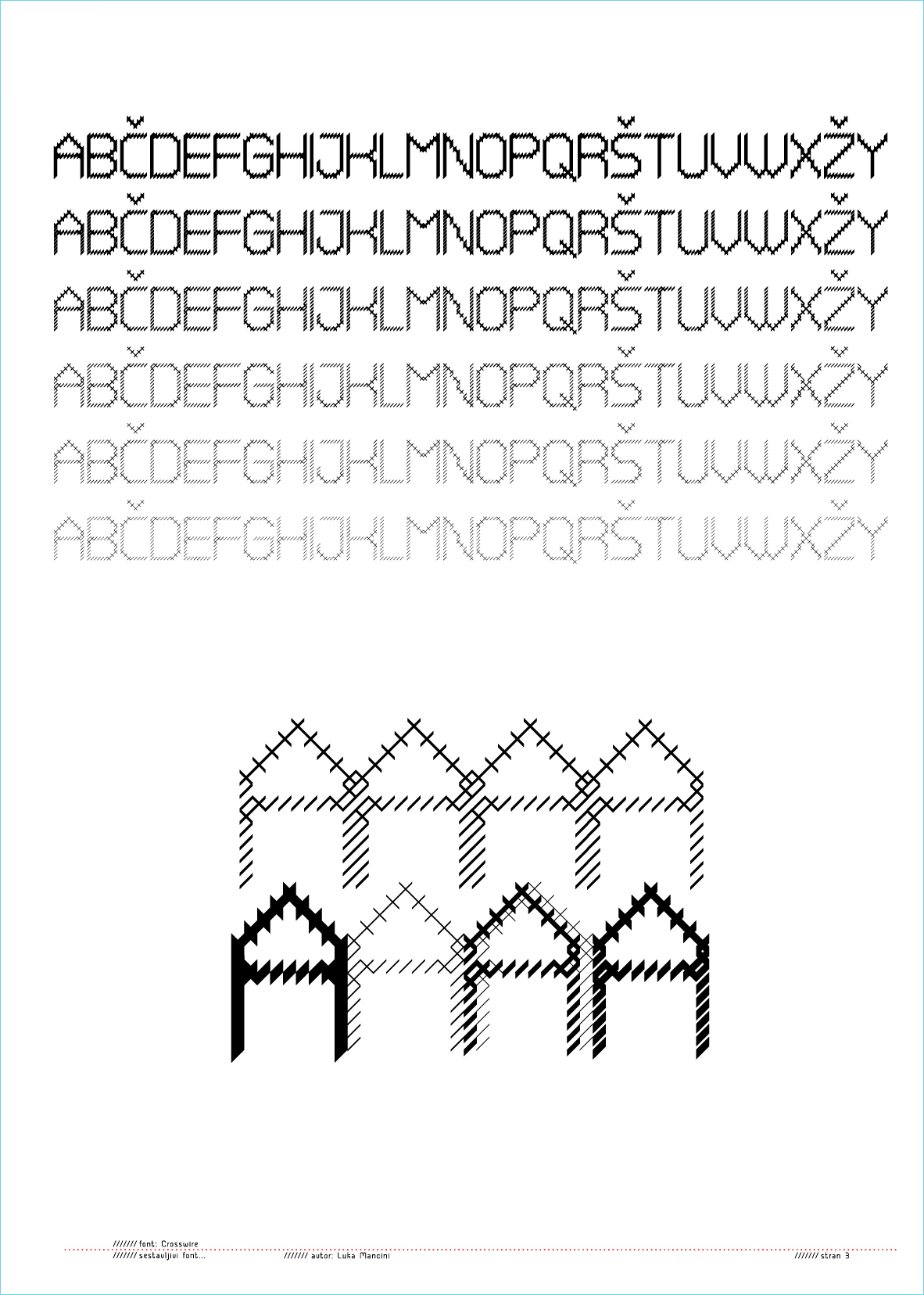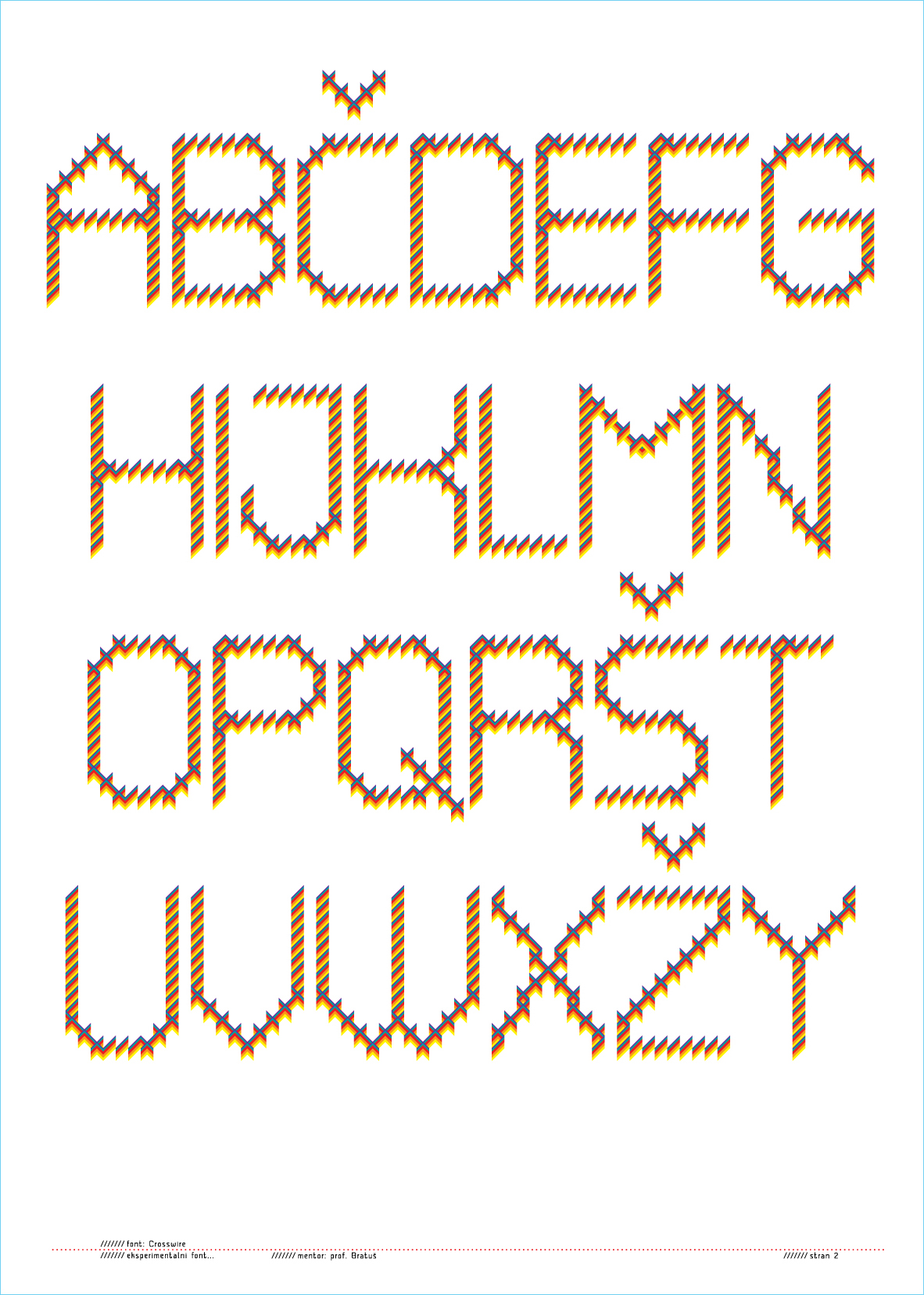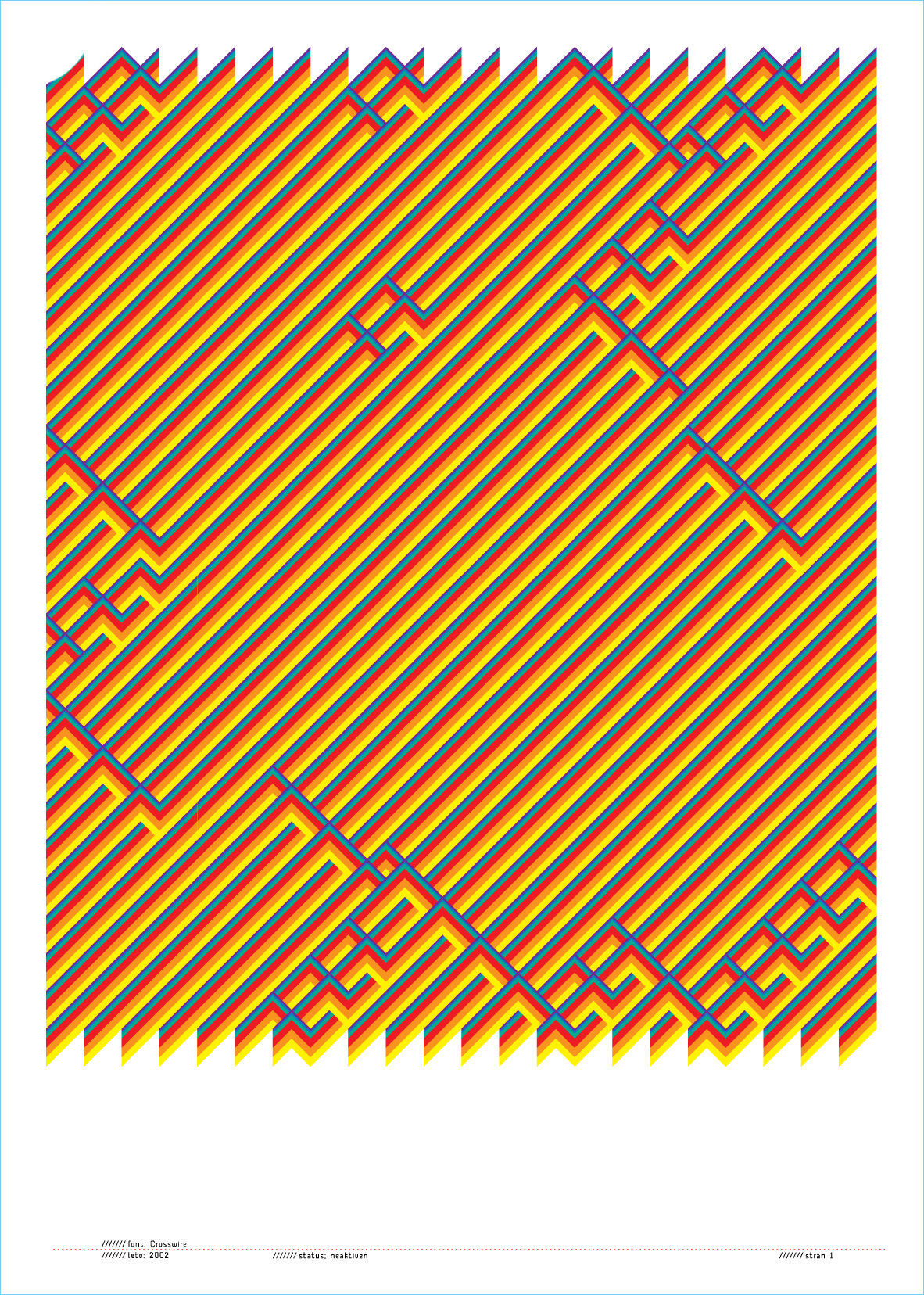
Crosswire is an expressive family of decorative fonts based on the exploration of line rhythm, transparency, and optical pattern mixing. The core feature of this typeface is that each individual letter is systematically constructed from precisely and orderly placed diagonal lines. The font family includes several different weights, which look highly graphic on their own, but the true potential of the typeface is revealed through layering.
The letters are designed to connect and intertwine with one another in fascinating and dynamic ways. Mixing and overlapping different weights within the same word creates complex, geometric patterns and textures. Using color adds another dimension to this experimentation—when different weights are colored in varying shades, they create unique visual effects that shift between an illusion of depth and kinetic vibration. Crosswire moves beyond the purely informative function of typography, operating as a standalone, modular tool for creating bold visual structures in contemporary graphic design.